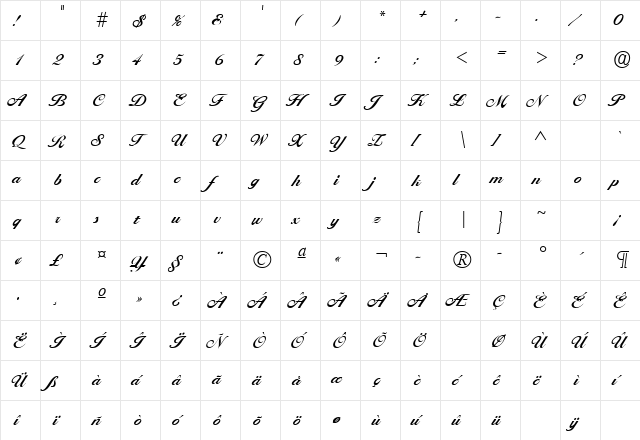
Ballantines Regular
Design Context for Ballantines Typeface
Ballantines takes a measured approach to typography — its balanced proportions and neutral character make it a reliable workhorse for both digital and print work.